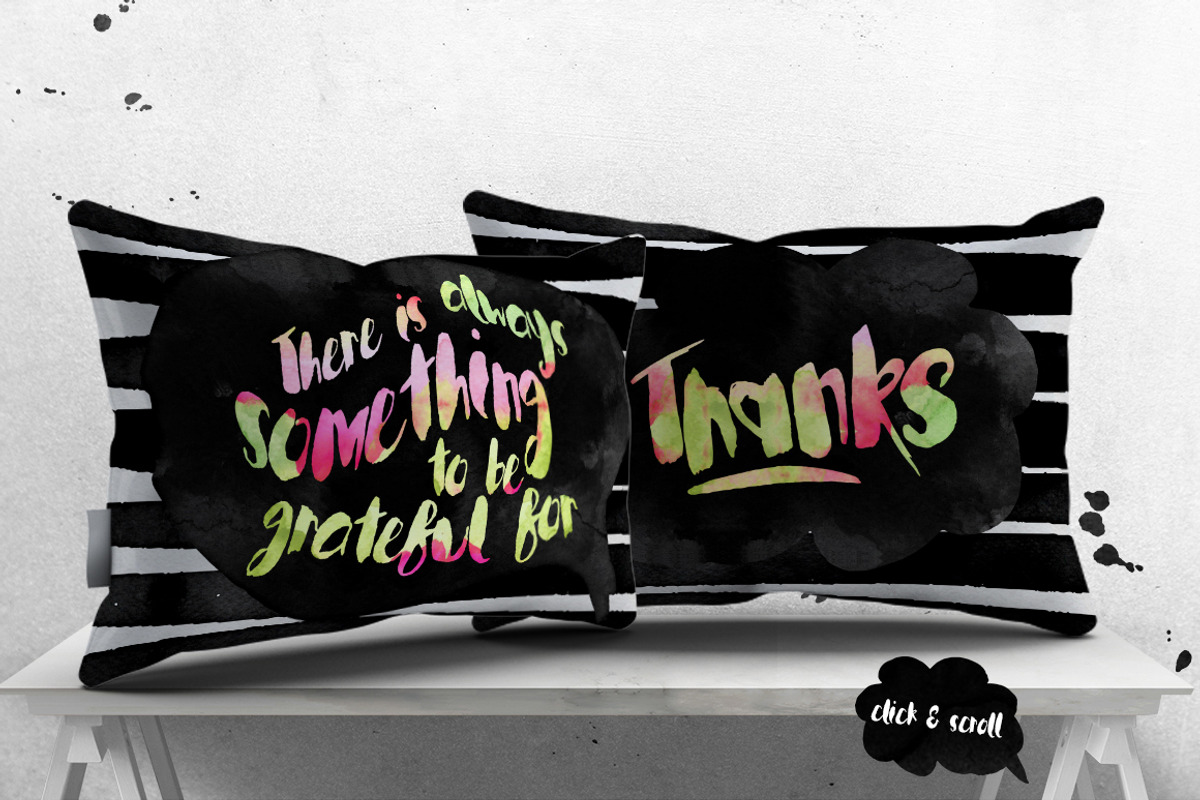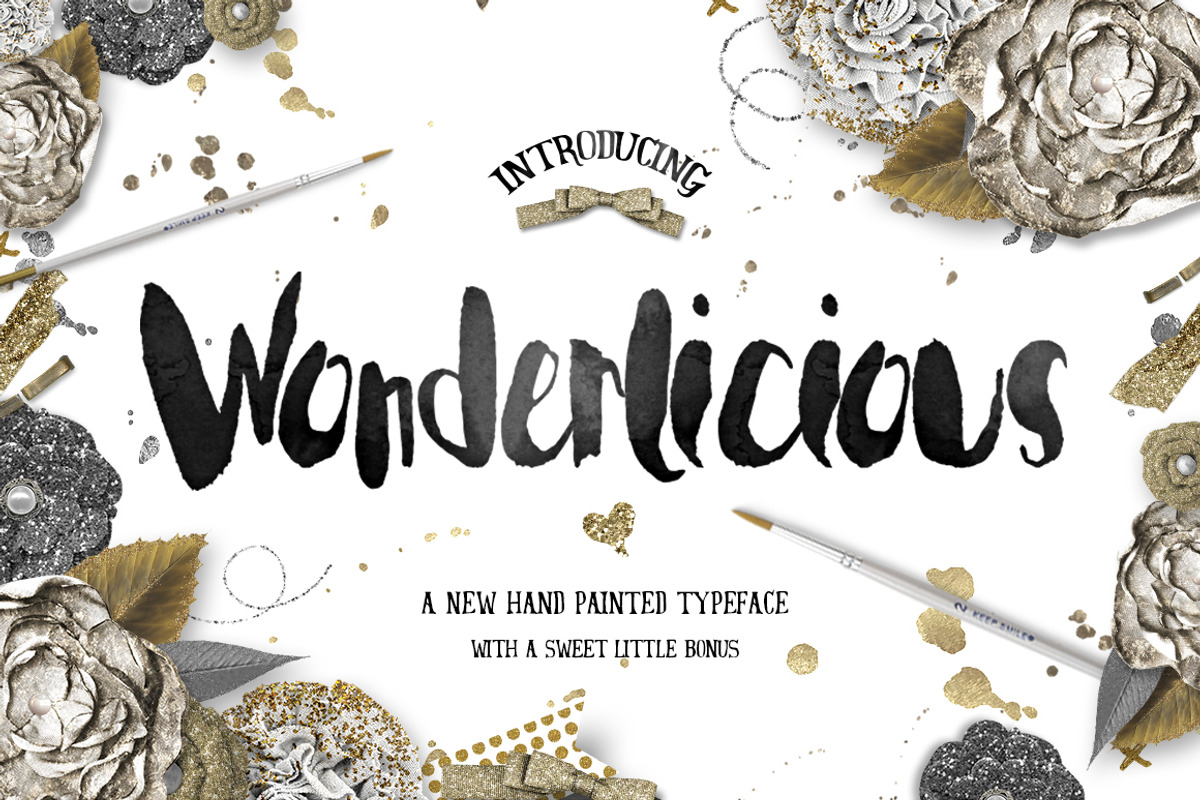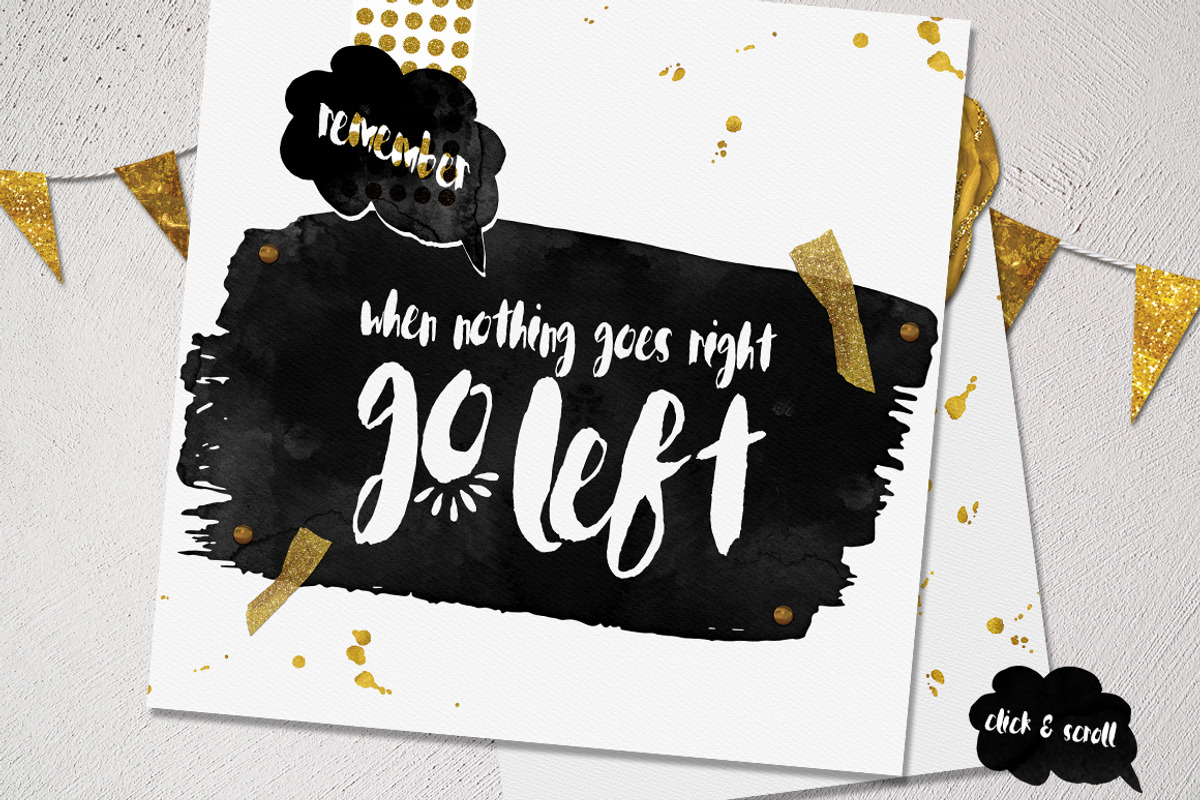
Wonderlicious Typeface
Wonderlicious Typeface by Creativeqube Design is a font selected for branding, posters, packaging, typography.
- A hand painted brush script with irregular baseline, with a rough natural brushed edge and some alternate Caps.
Why Wonderlicious Typeface is worth a look
Wonderlicious Typeface by Creativeqube Design fits naturally into Branding, posters, packaging, typography.